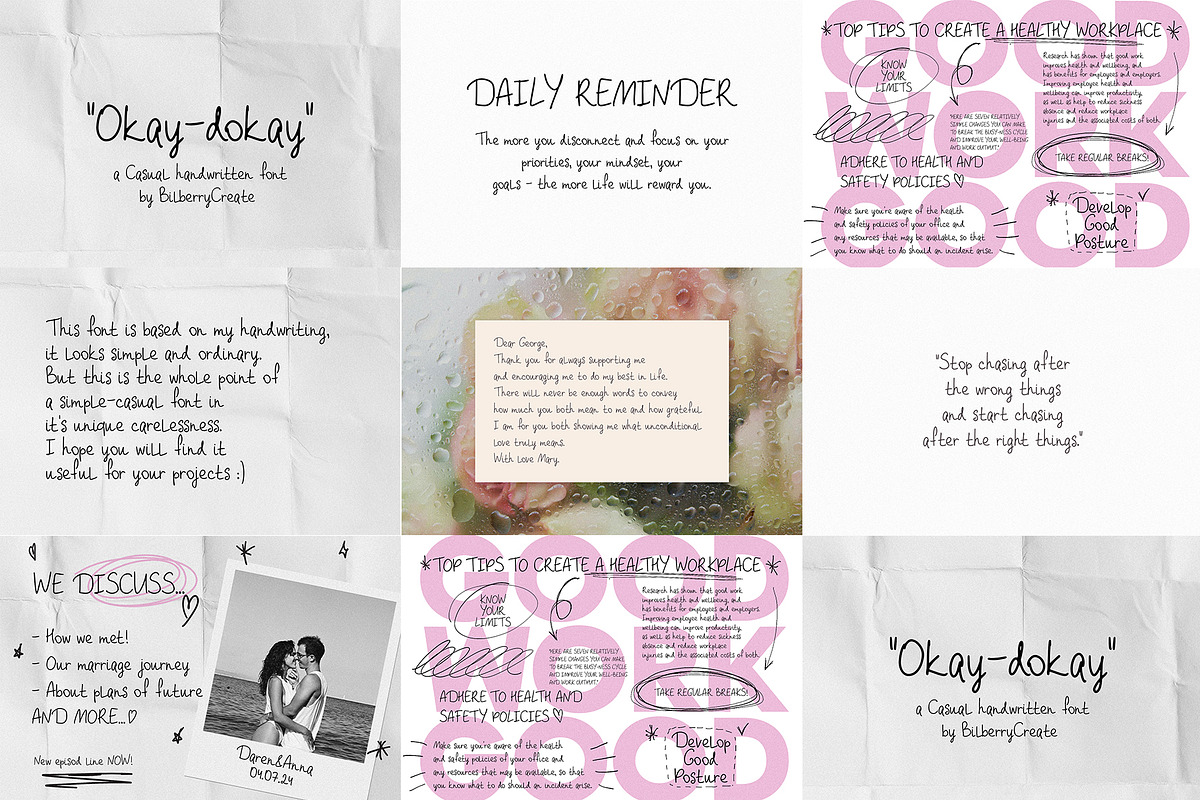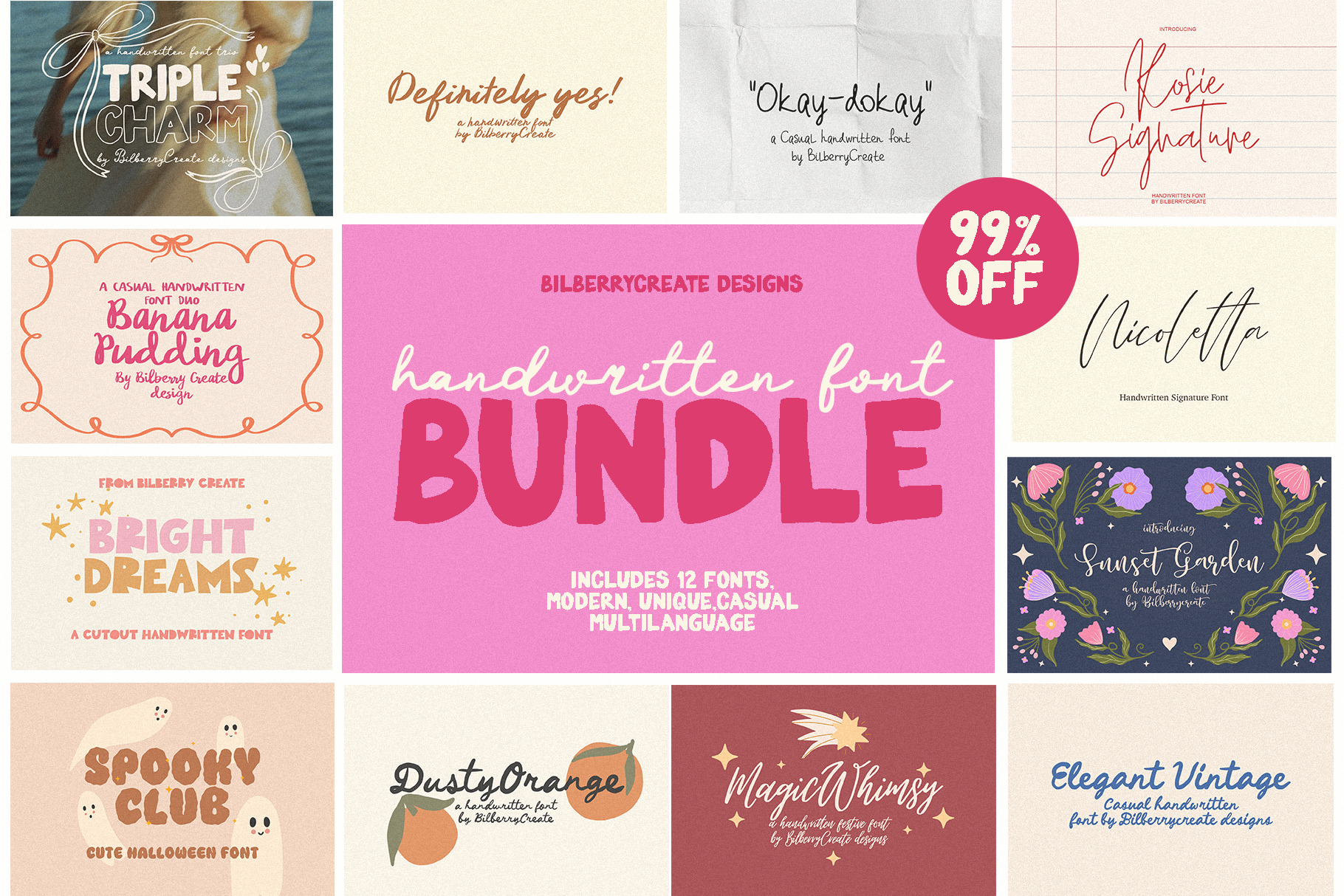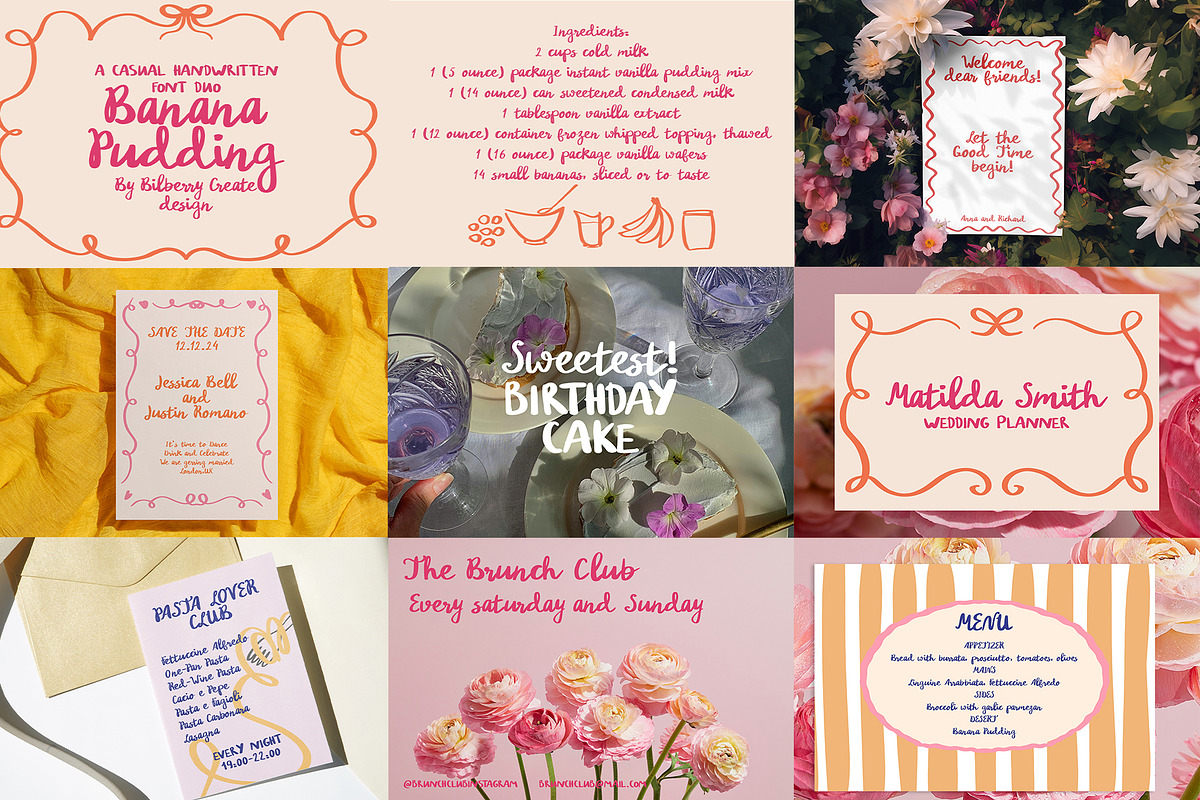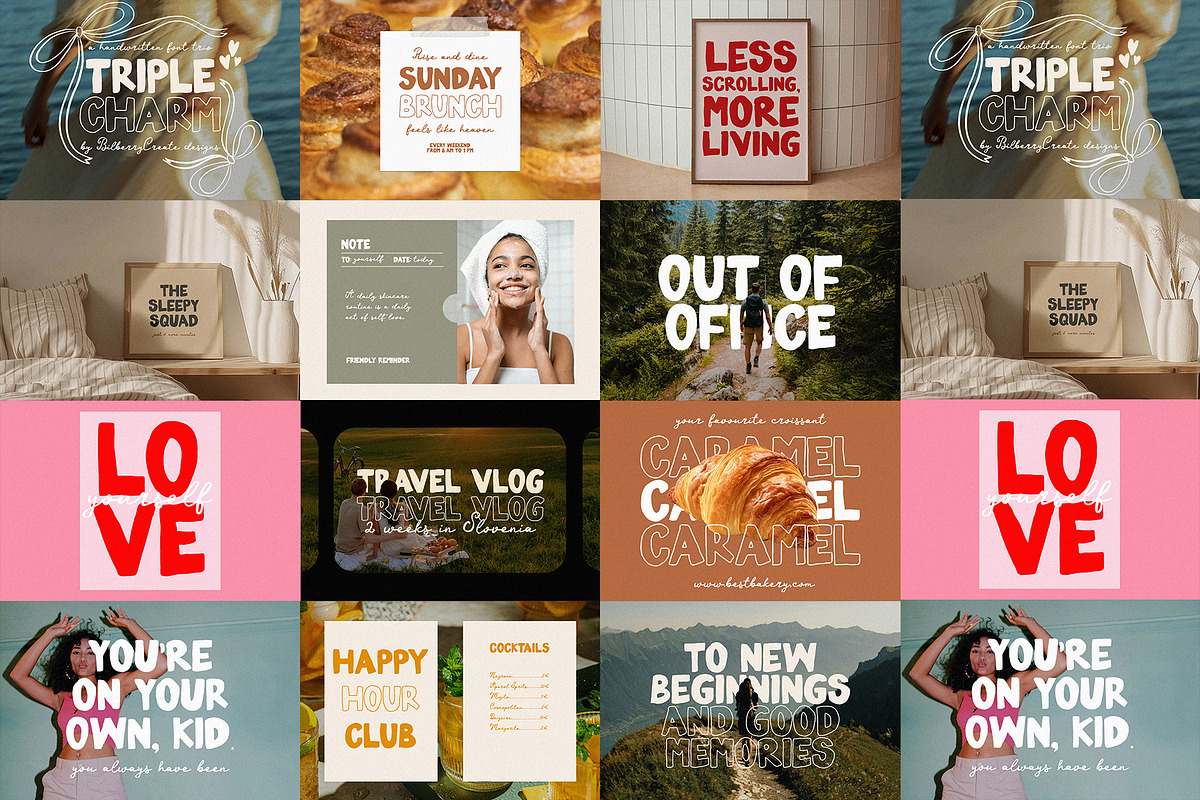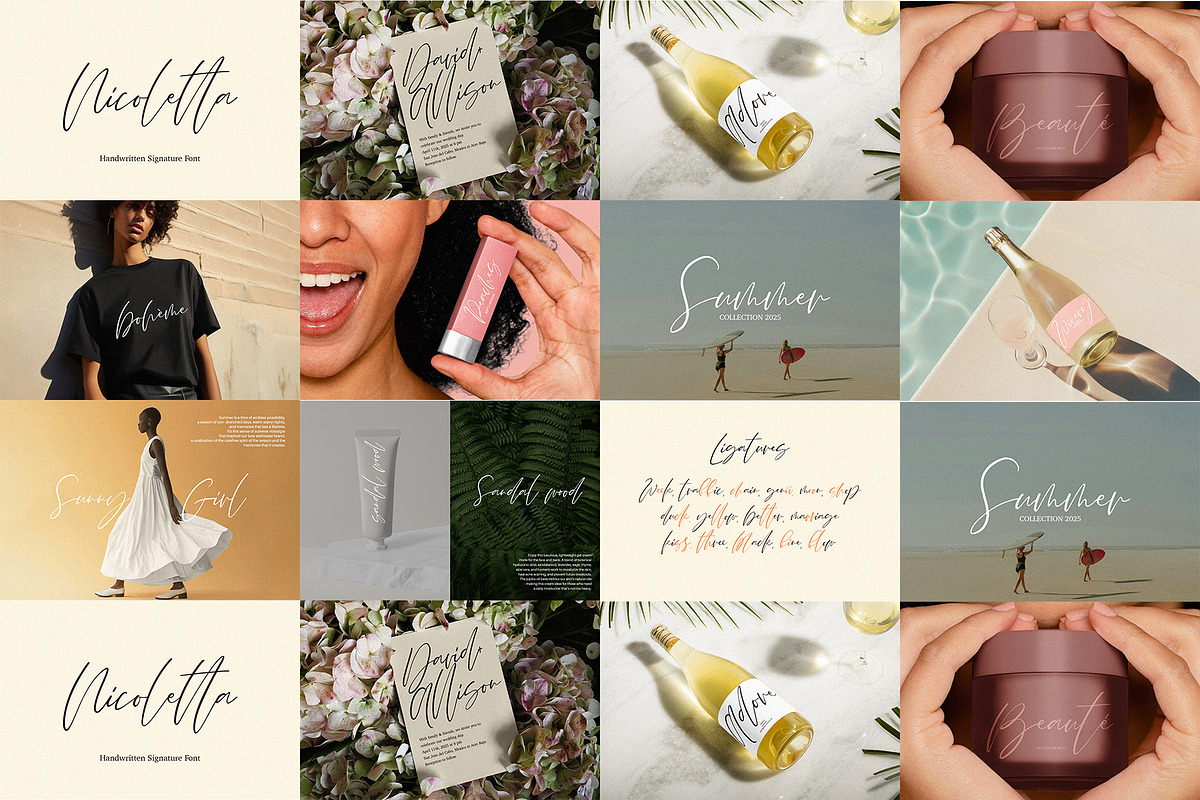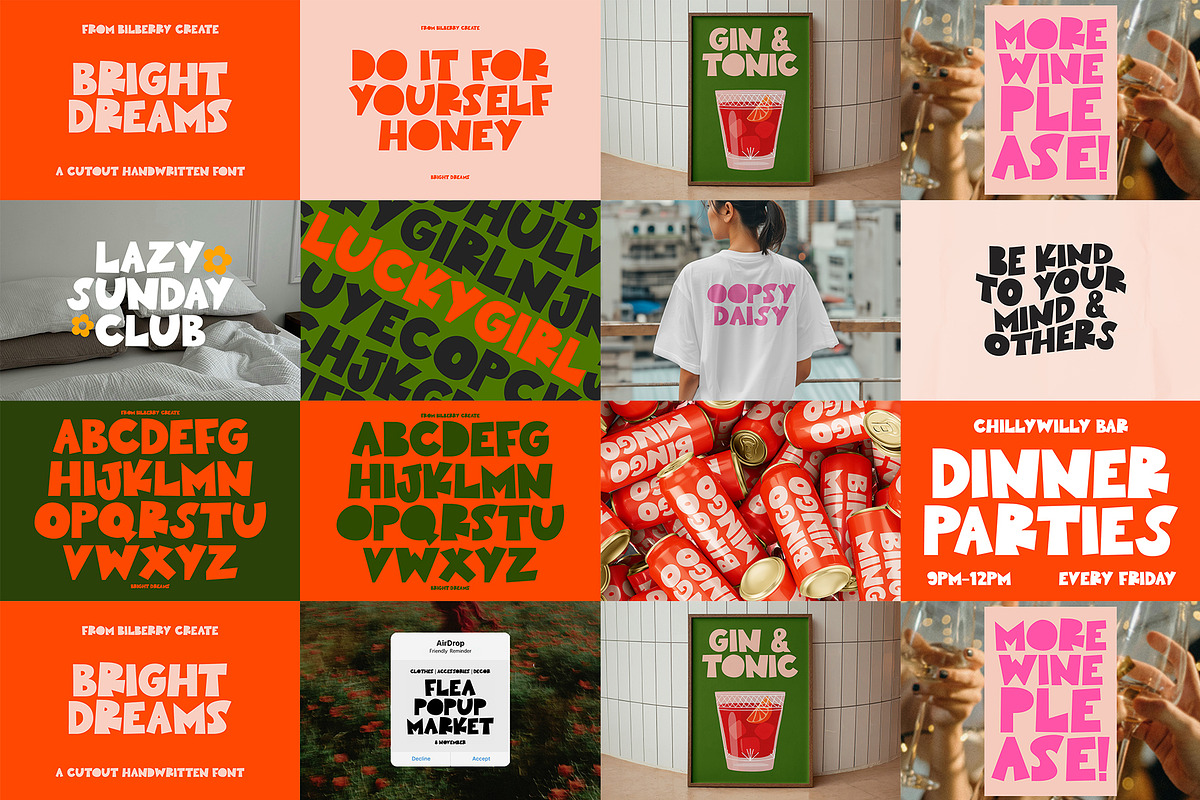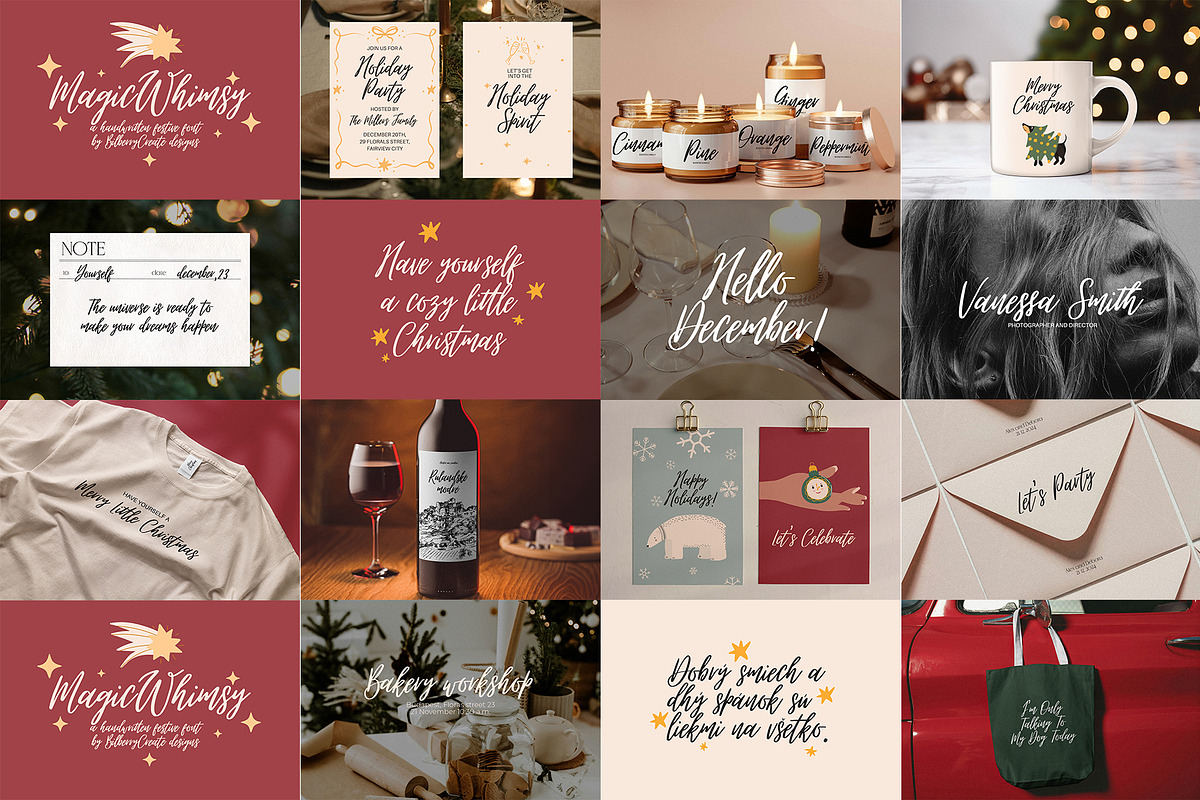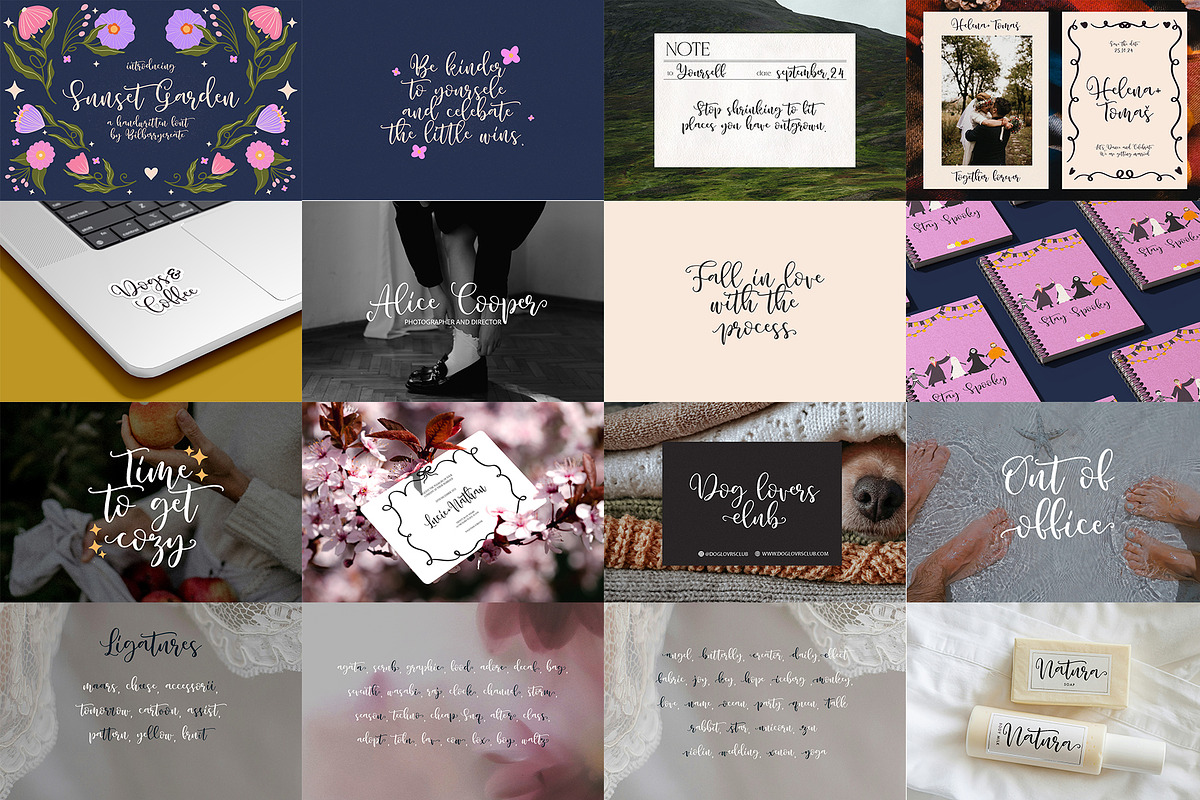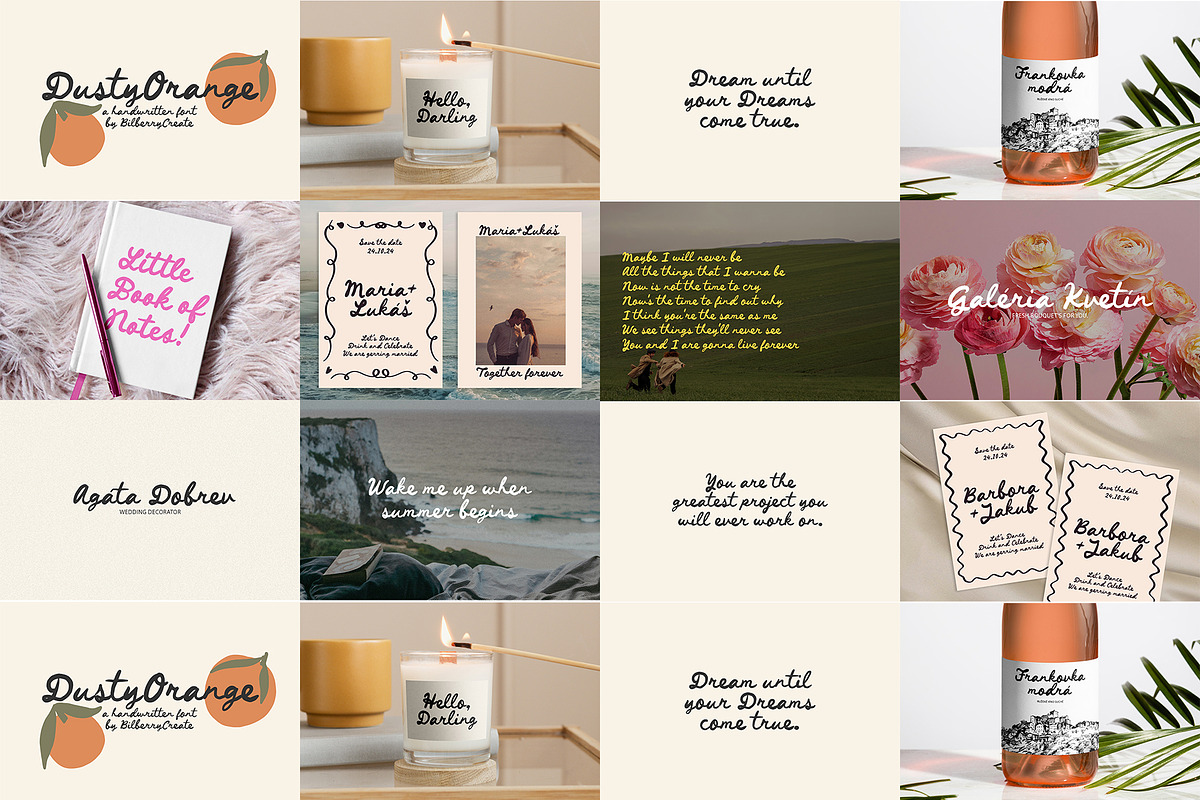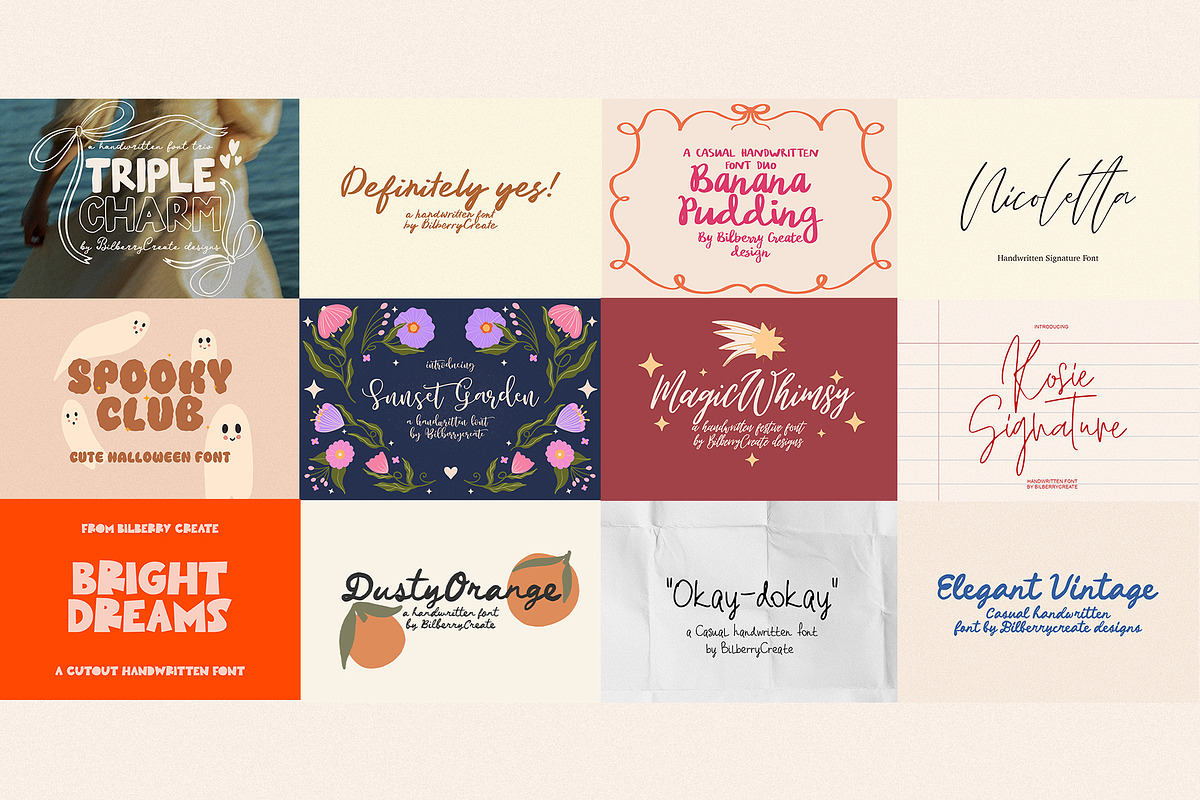
Handwritten font bundle 2024
This pack can be used to create anything as you wish, logos invitation cards, wedding cards, birthday cards, home decor, packaging holiday gifts, party decorations, print on fabrics and so much more.
Perfect for adding a elegant and unique touch to your lettering projects and branding. Every single letters have been carefully crafted to make your text looks beautiful. With lettering script style this font will perfect for many different project ex: quotes, blog header, poster, wedding, branding, logo, fashion, apparel, letter, invitation, stationery, etc.
All fonts support multi languages